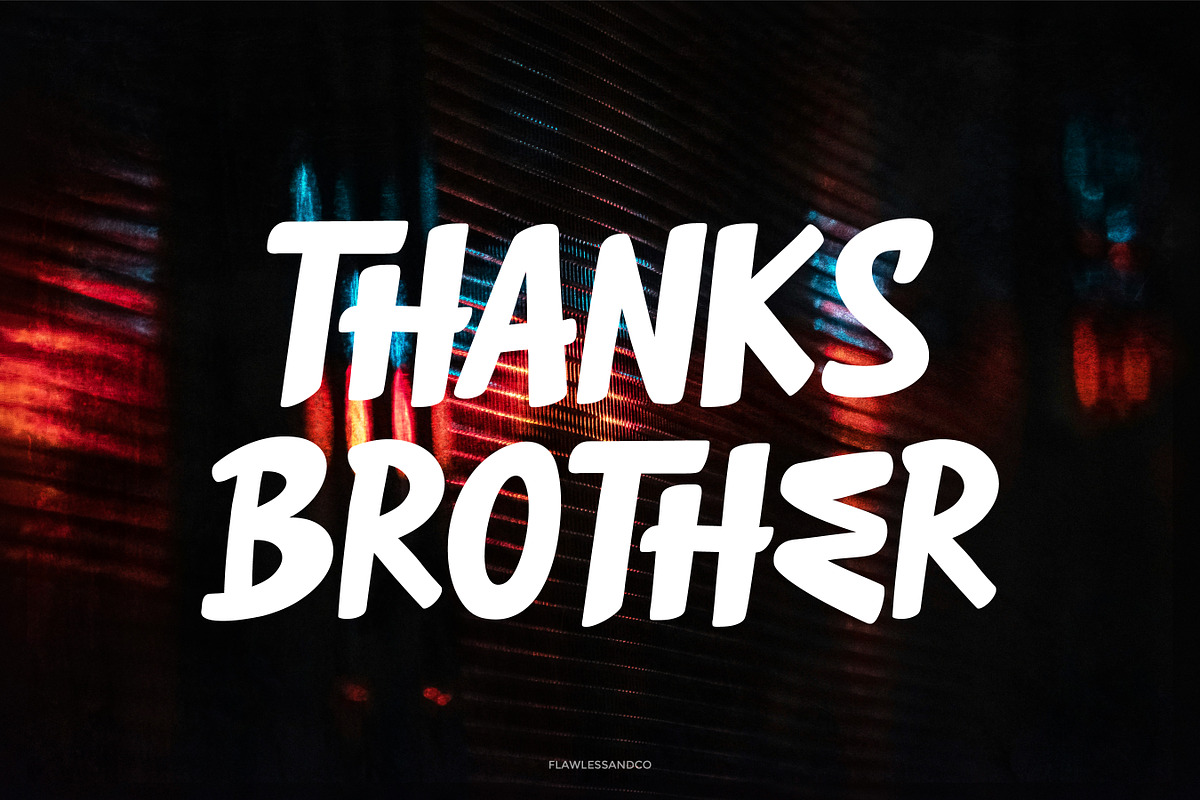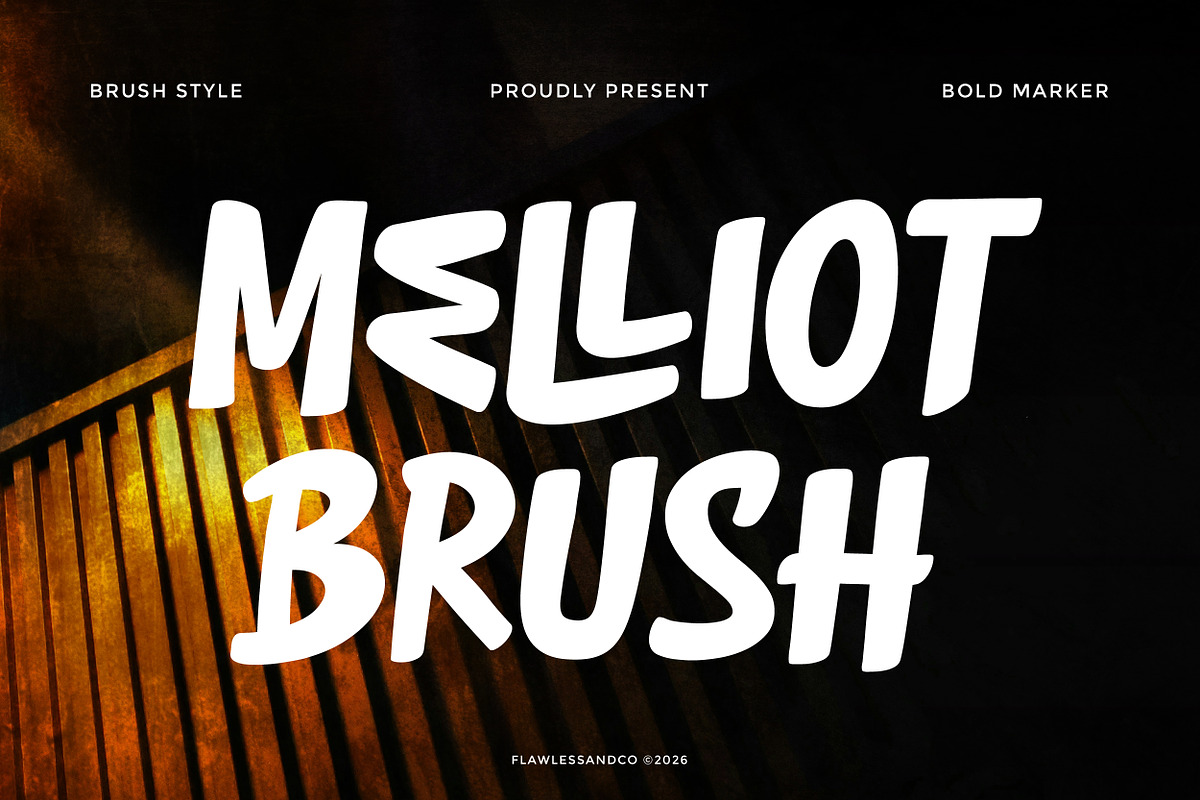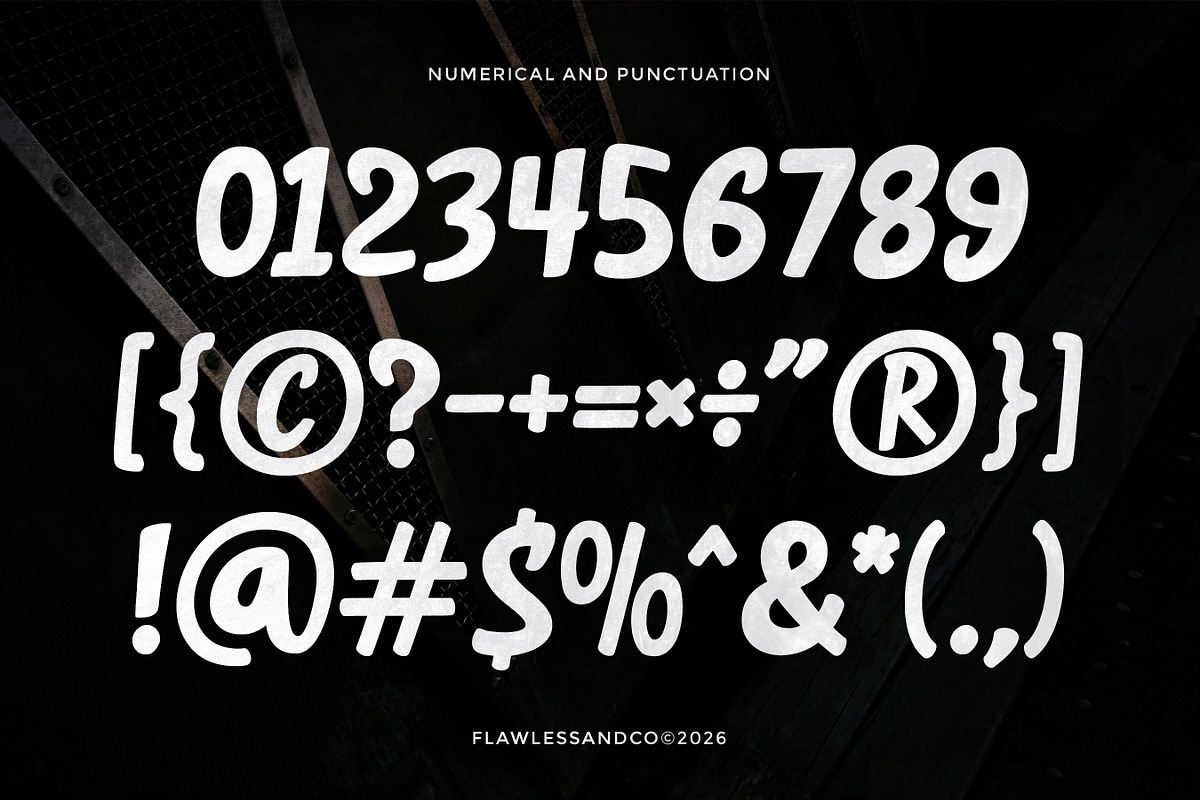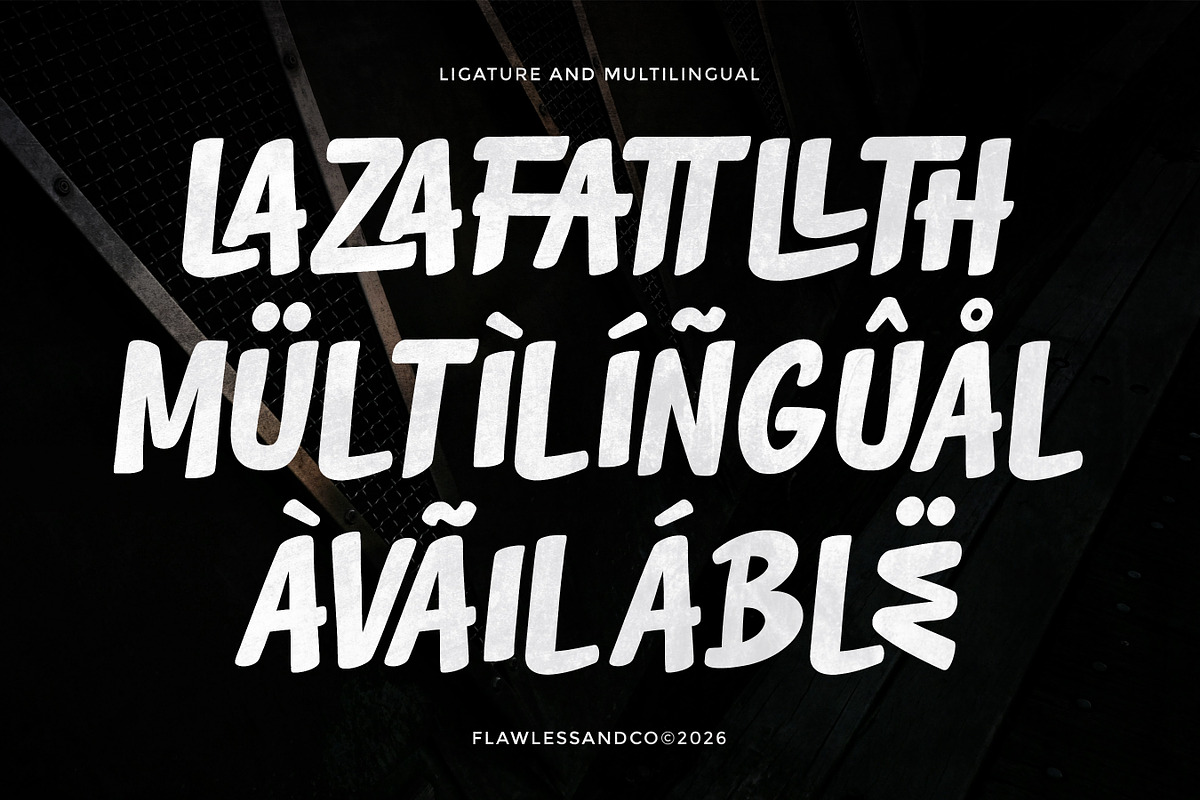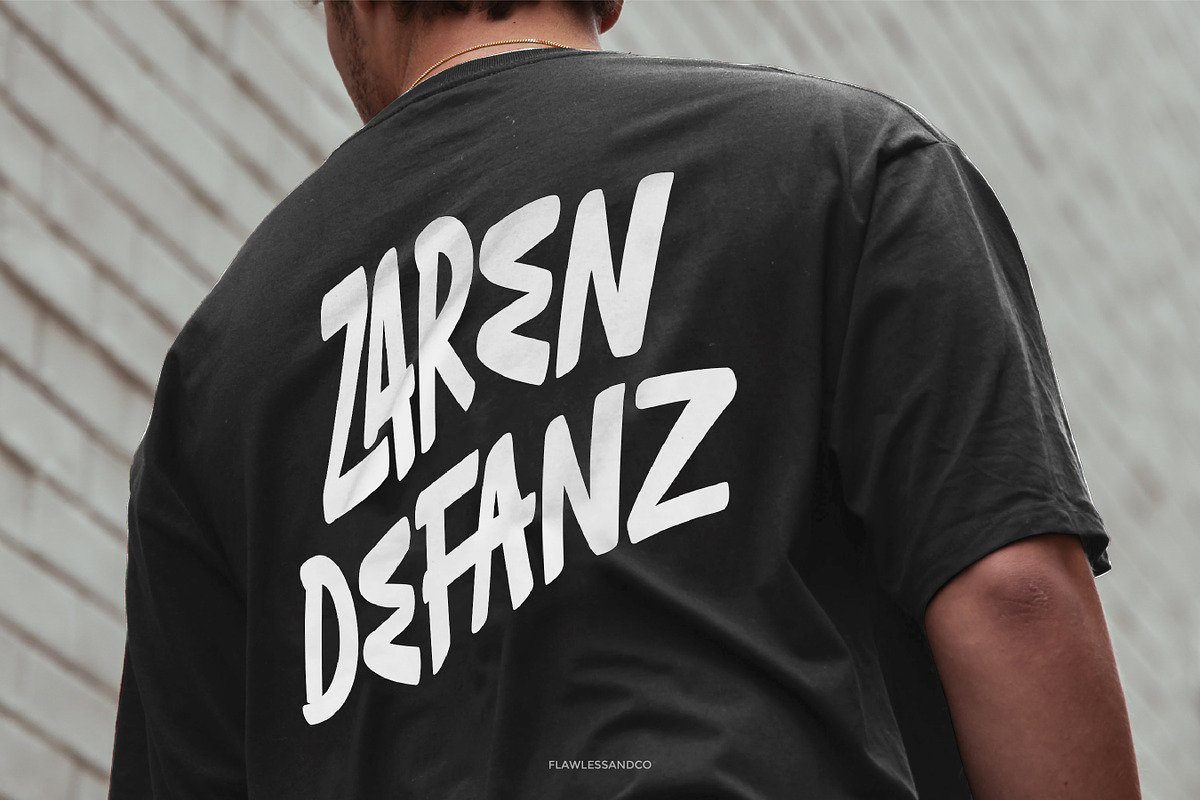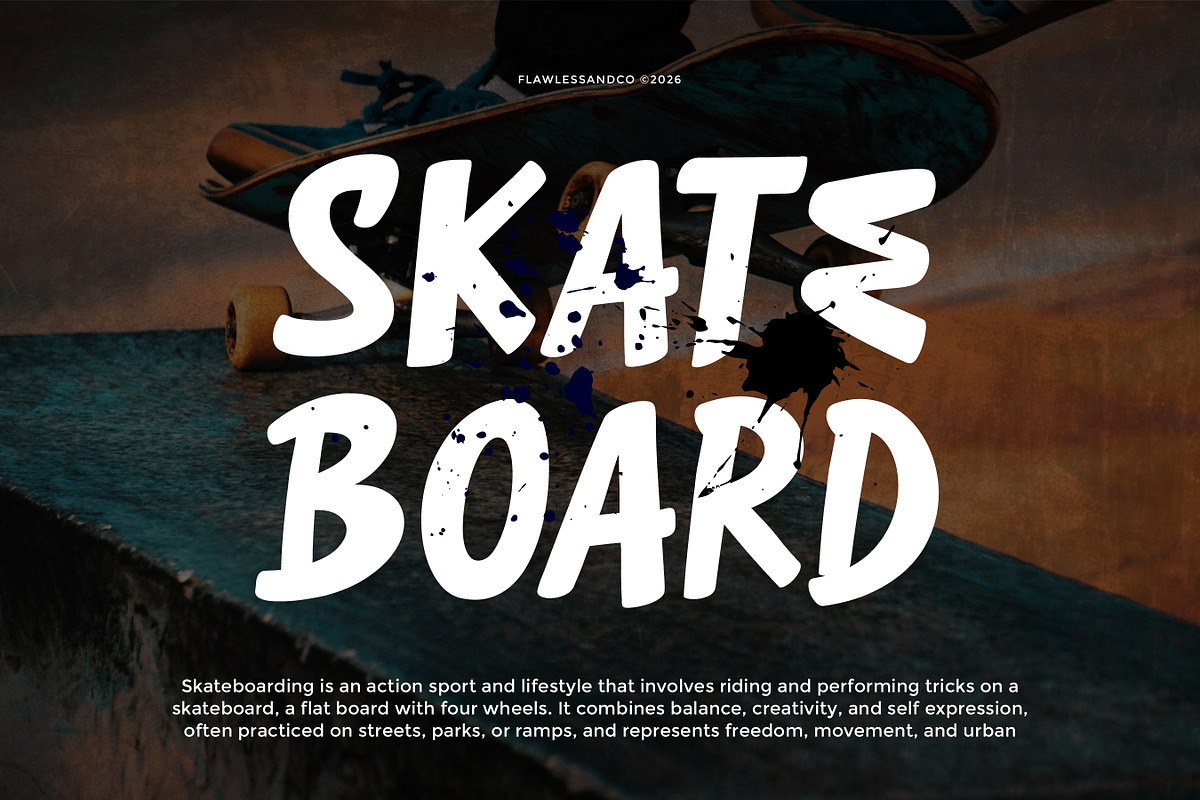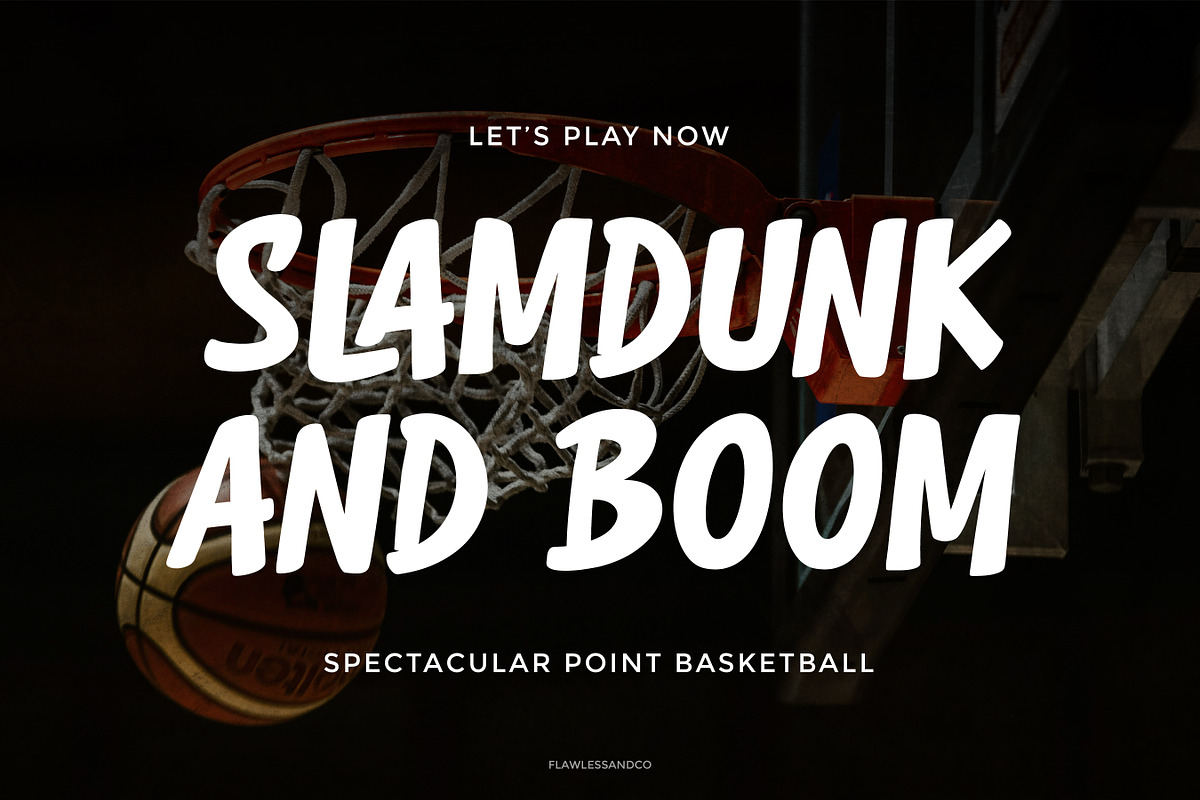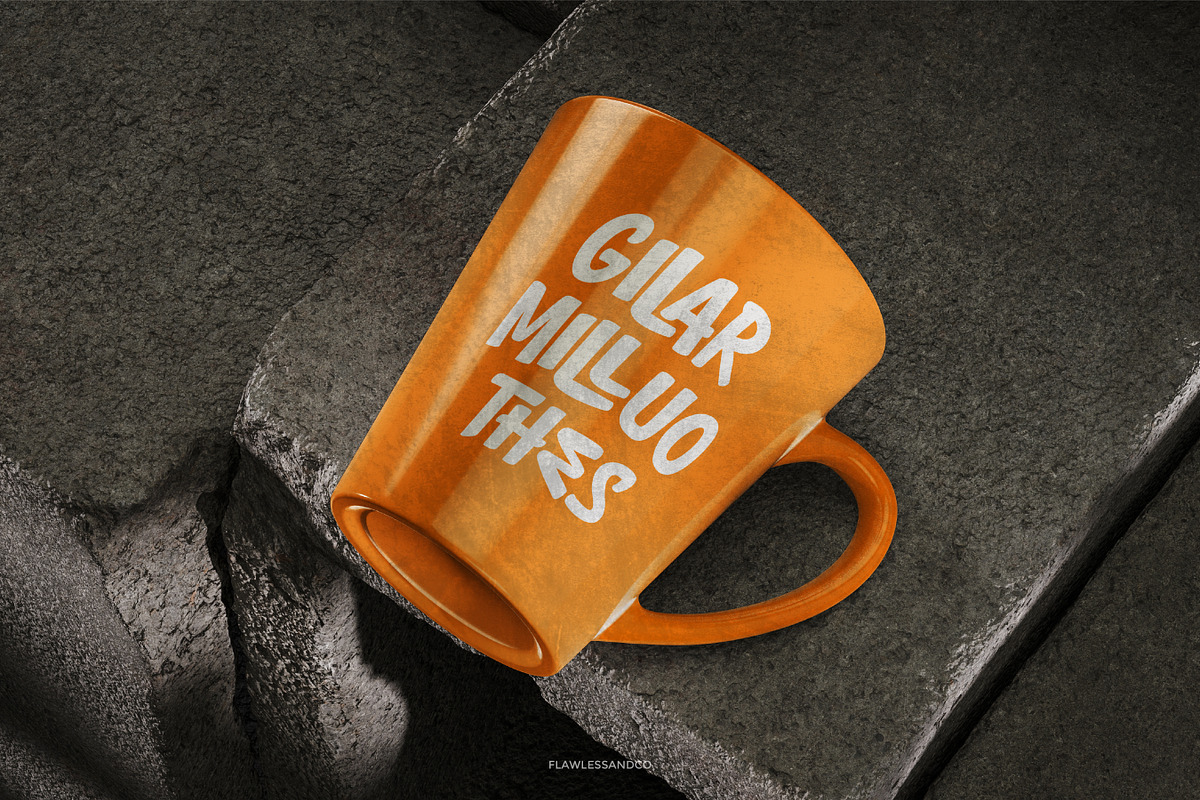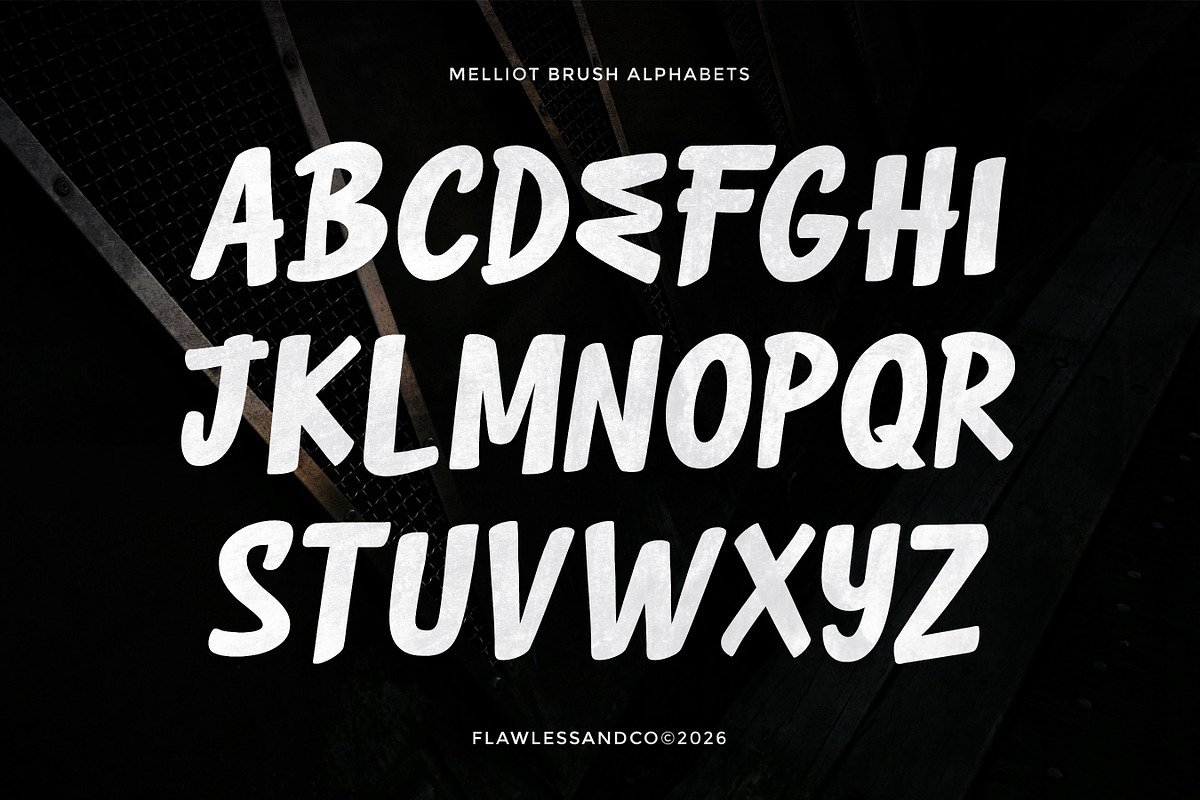
Melliot - Brush Font
Melliot – Brush Font
Melliot is a bold and expressive brush typeface that captures the natural energy of hand-painted lettering. Designed with dynamic strokes, textured edges, and smooth flowing movement, Melliot delivers an authentic handcrafted feel that adds personality and impact to any design. Its strong visual character makes it perfect for eye-catching headlines and creative display work while maintaining a stylish and modern appearance. Whether you’re building a brand or creating standout visuals, Melliot brings a powerful artistic touch to your typography
Features: Uppercase & Lowercase Alternates & Ligatures Numerals & Punctuation Multilingual Support
Who Should Use Melliot? Melliot is perfect for designers, brand owners, and creatives who want to create bold, energetic, and expressive visuals. It’s ideal for fashion brands, streetwear labels, creative agencies, content creators, and anyone looking for a strong handcrafted brush style that stands out and feels modern.
Suitable For: Branding and logo design Streetwear and fashion projects Product packaging and labels Posters and promotional materials Social media graphics and content Album covers and merchandise Event and campaign visuals Creative typography and quote designs